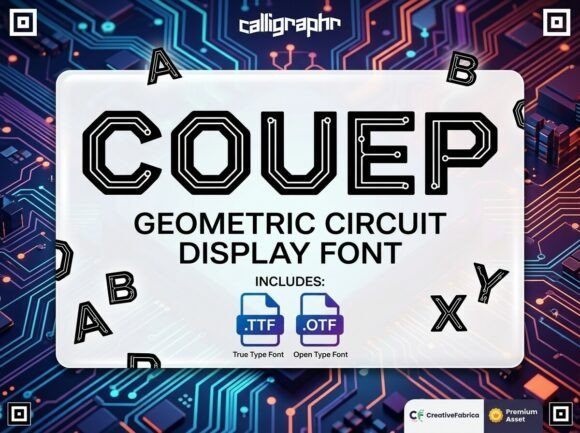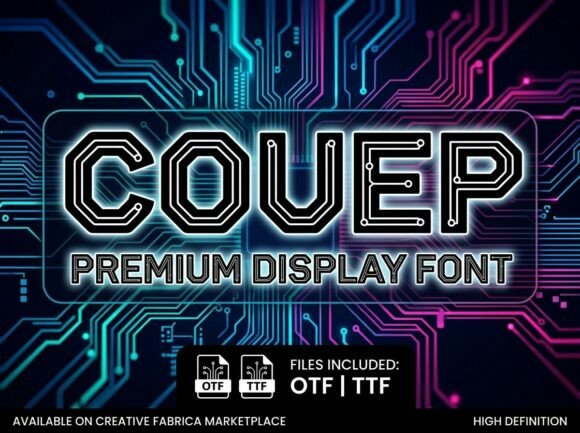
Unleash the Power of Couep Font: Elevate Your Digital Presence
In the rapidly evolving digital landscape, establishing a strong visual identity is crucial for brands, especially in the esports, cyber-security, and tech industries. A font that embodies the essence of innovation, technology, and digital dominance can be a game-changer. Introducing Couep Font, a high-voltage display typeface designed to capture the “cyber-and-connected” soul of your brand. With its bold, geometric letterforms and futuristic personality, Couep is the perfect choice for designers and crafters looking to power up their digital presence.
The Design and Features of Couep Font
Couep Font boasts a unique design that sets it apart from other typefaces. Its bold, geometric letterforms are filled with a dense tapestry of rhythmic circuit board pathways and microchip nodes, giving it a futuristic and high-tech look. The font is contained within a glowing neon outline, which adds an extra layer of depth and visual appeal. The heavy structural weight of Couep makes it perfect for headlines, titles, and social media headers where you want to make a bold statement.
Ideal Use Cases for Couep Font
Couep Font is specifically designed for use in industries where technology and innovation are at the forefront. Some of the ideal use cases for Couep include:
- Independent Esports Branding: Couep’s bold and futuristic design makes it perfect for esports teams and brands looking to establish a strong visual identity.
- Cyber-Security Logos: The font’s circuit board pathways and microchip nodes evoke a sense of security and technology, making it ideal for cyber-security companies.
- Hardware Technology Startups: Couep’s futuristic personality and bold design make it a great choice for hardware technology startups looking to establish a strong brand presence.
- High-Impact Social Media Headers: Couep’s heavy structural weight and glowing neon outline make it perfect for social media headers where you want to grab attention and make a statement.
Why Choose Couep Font?
With so many fonts available, why choose Couep? Here are a few reasons why Couep stands out:
- Unique Design: Couep’s design is unlike any other font on the market. Its bold, geometric letterforms and futuristic personality make it a standout choice.
- High-Impact Visibility: Couep’s heavy structural weight and glowing neon outline ensure that your brand gets noticed.
- Versatility: Couep can be used in a variety of contexts, from digital headers to print materials.
- Easy to Read: Despite its bold design, Couep is easy to read, making it perfect for use in headlines and titles.
Tips for Using Couep Font Effectively
To get the most out of Couep Font, here are a few tips:
- Use it Sparingly: Couep’s bold design can be overwhelming if overused. Use it sparingly to make a maximum impact.
- Pair it with a Simple Font: Pair Couep with a simple font to create visual contrast and make your design more readable.
- Experiment with Colors: Couep’s glowing neon outline can be customized to fit your brand’s color scheme. Experiment with different colors to find the perfect combination.
Couep Font is a powerful tool for designers and crafters looking to establish a strong visual identity in the digital landscape. With its bold, geometric letterforms and futuristic personality, Couep is the perfect choice for independent esports branding, cyber-security logos, hardware technology startups, and high-impact social media headers. By incorporating Couep into your design arsenal, you’ll be able to power up your digital presence and make a lasting impression on your audience.